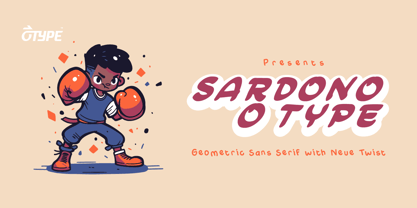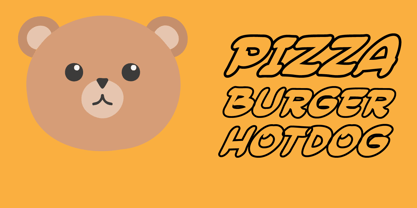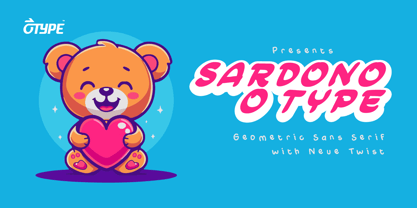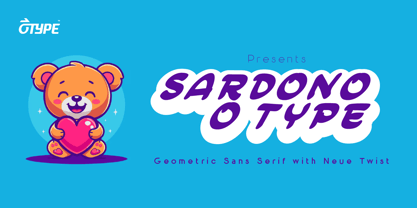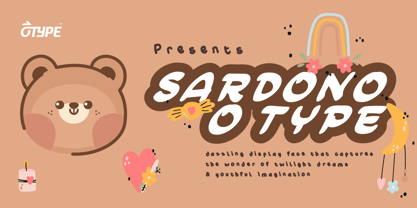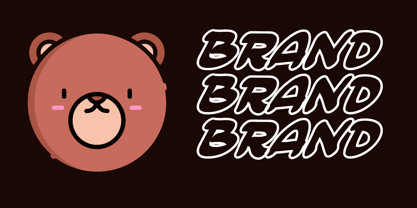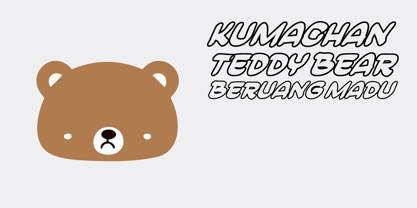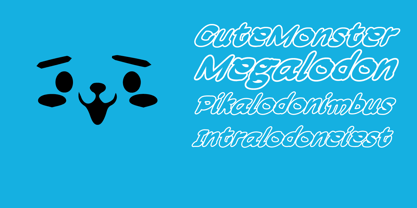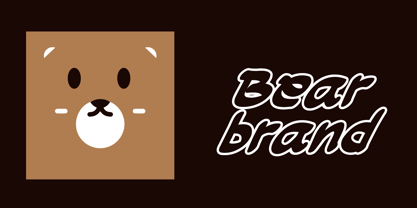
Sardono Inline
by O Type Foundry
The Sardono Inline Font Family was designed by Galang Persada and published by O Type Foundry. Sardono Inline contains 1 styles. More about this family
🌅 Sardono Inline is a dazzling display face that captures the wonder of twilight dreams and youthful imagination. With bold contours, inset lines, and a lively stance, it radiates charisma-perfect for projects that need to stand tall and shine bright.
🎠 Inspired by playground murals, local signage, and the nostalgic joy of outdoor summer evenings, the Sardono Inline blends Indonesian warmth with a contemporary twist. Its retro-futuristic groove brings energy to event posters, brand campaigns, title cards, merchandise, and book covers - especially those aimed at arts, festivals, or youth audiences.
🪄 What makes Sardono Inline truly special is its dual nature: decorative yet grounded, playful yet structured. The inline detail adds texture and dimension, making every headline pop with personality. It's bold enough to stand alone, yet pairs beautifully with clean sans serif or neutral text fonts for contrast and clarity.
🔑 Key Features:
• Decorative inline design with strong geometric construction
• Great for display use: posters, packaging, signage, and logos
• Bold yet legible at large and medium sizes
• Ideal for themes of joy, celebration, or wonder
• Pairs well with geometric sans serif or monospace companions
🎨 Part of the growing O Type Foundry family, Sardono Inline adds a sense of story, sparkle, and style to your creative toolkit.
Let your visuals play in the golden hour - Sardono Inline brings the sunshine.